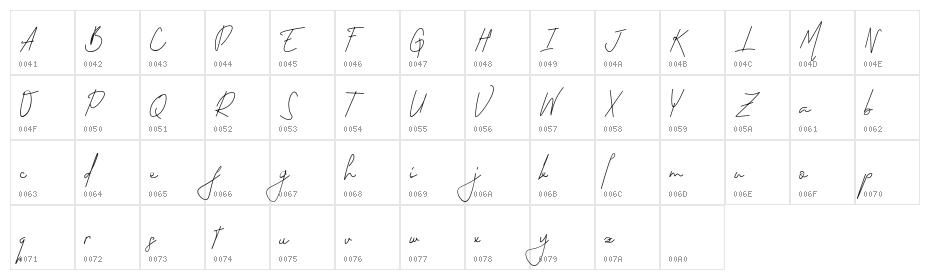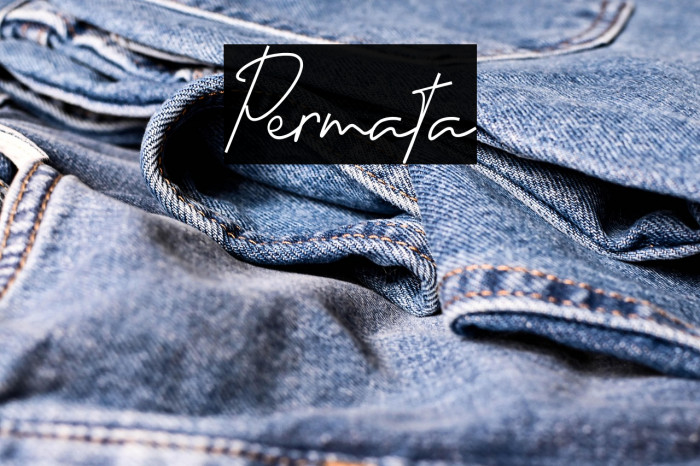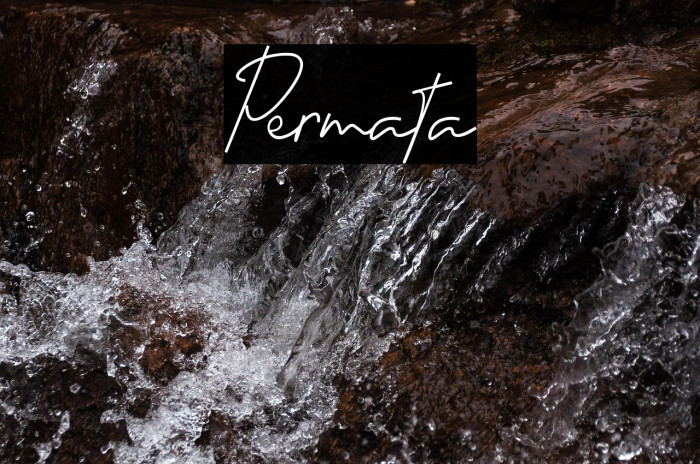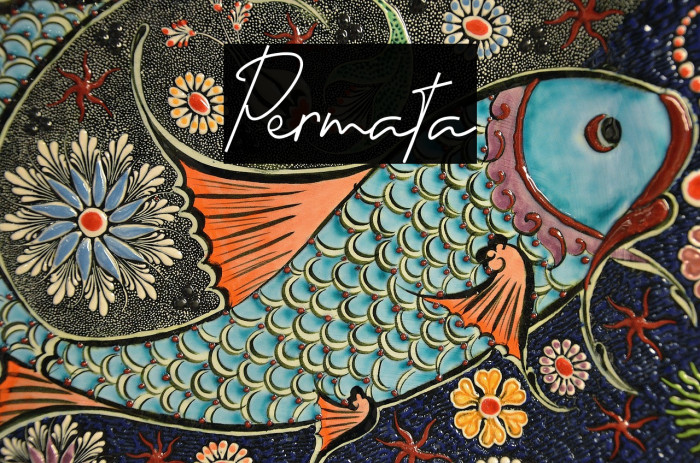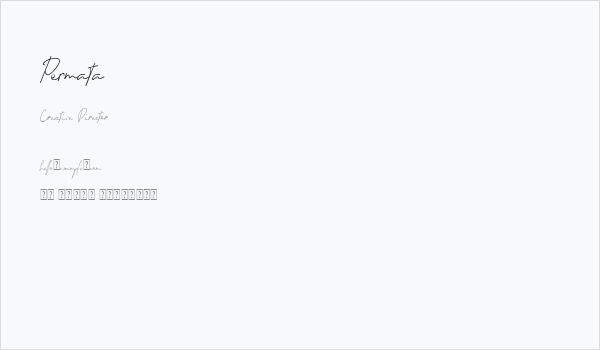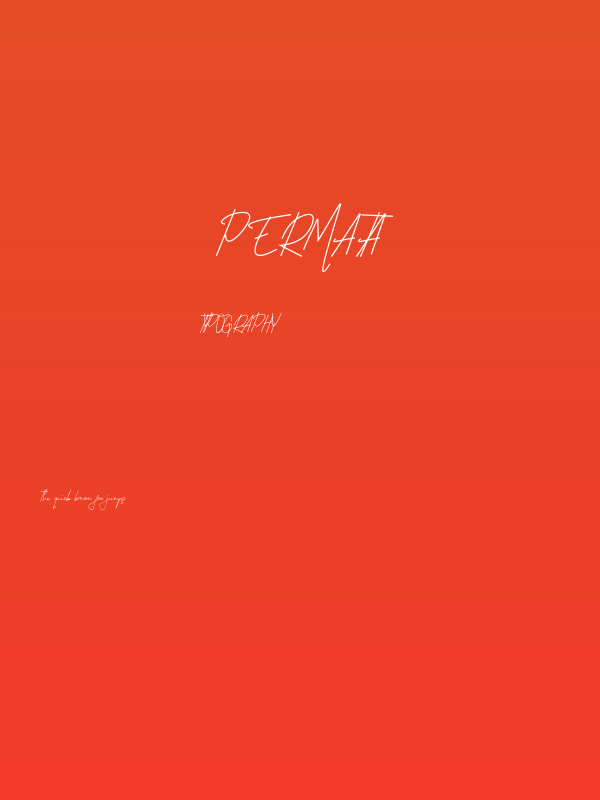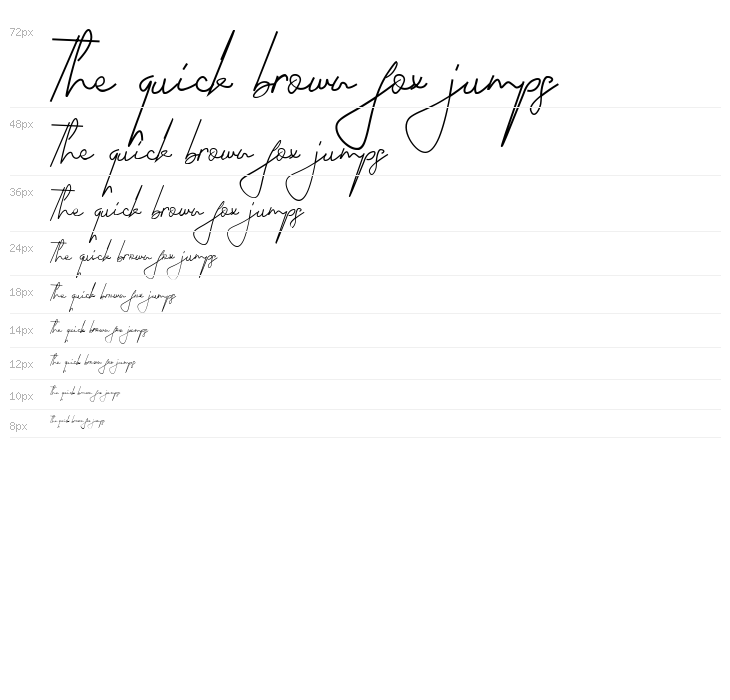
Permata Font
Permata Description
This font exudes a dynamic and expressive style, characterized by its fluid, cursive script that mimics natural handwriting. The letters are elongated and slightly slanted, giving a sense of motion and elegance. The strokes vary in thickness, adding a touch of sophistication and artistic flair. The uppercase letters are bold and prominent, while the lowercase letters maintain a consistent flow, enhancing readability. The font's unique style is perfect for creative projects that require a personal touch.
| Proposed Projects | Ideal for wedding invitations, personal branding, artistic posters, and creative logos. |